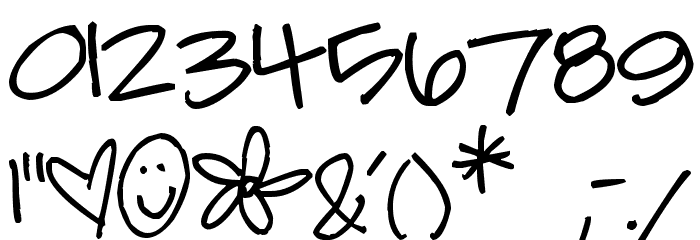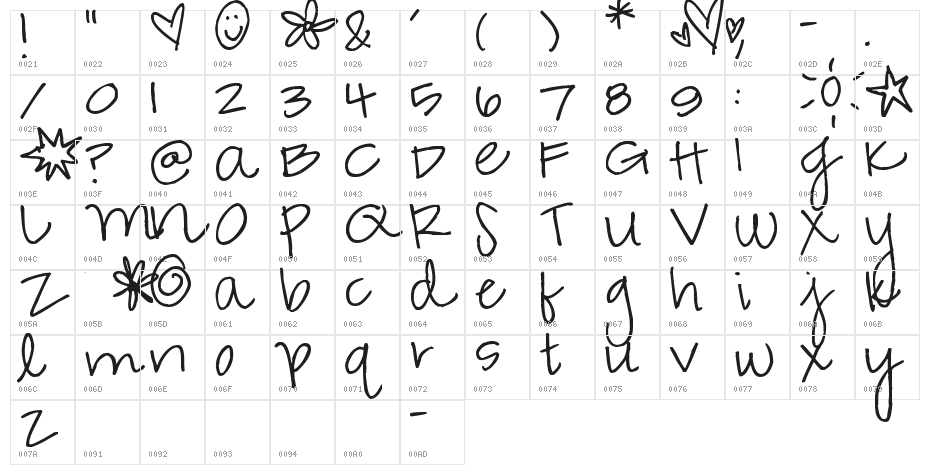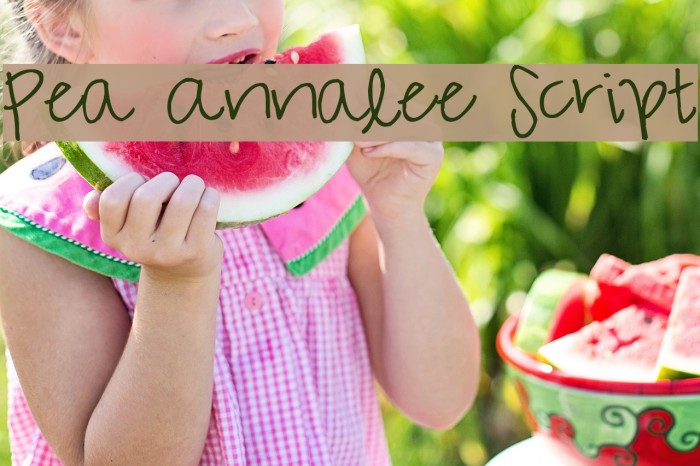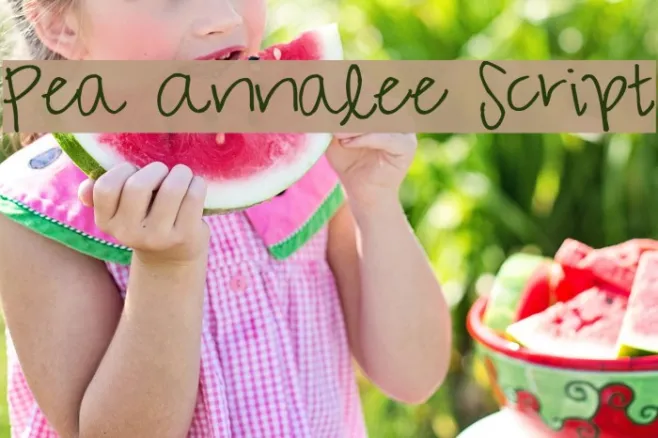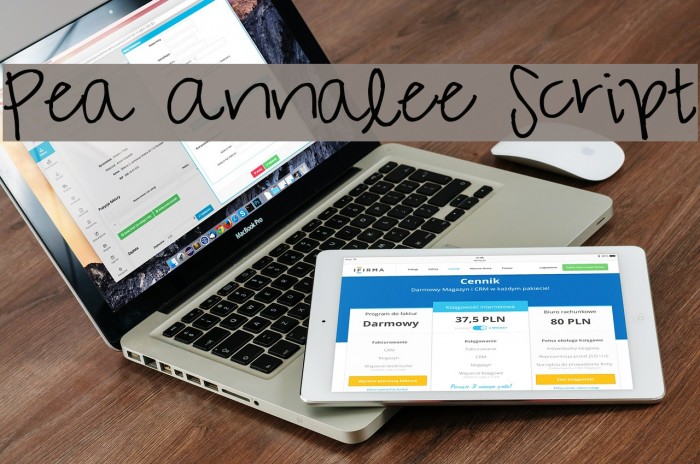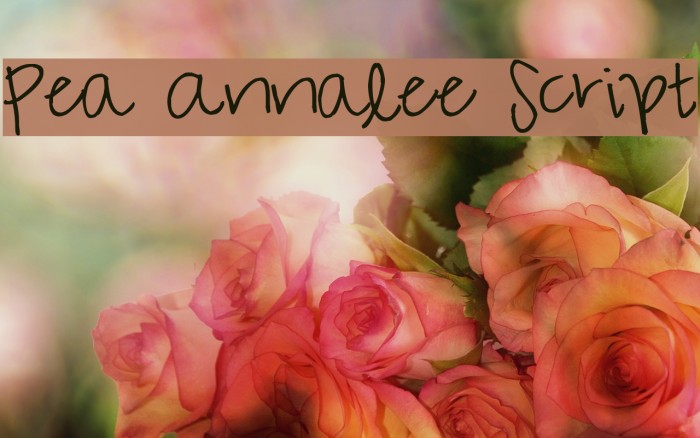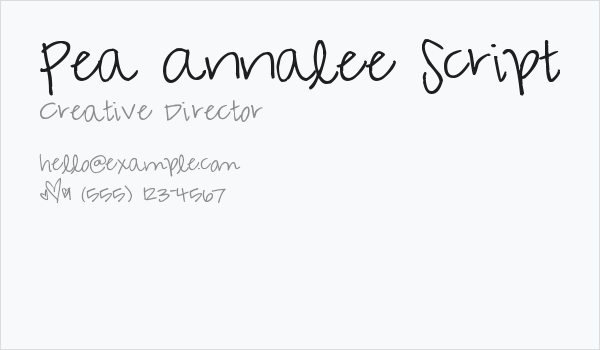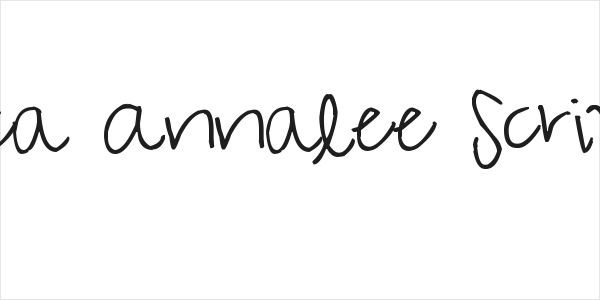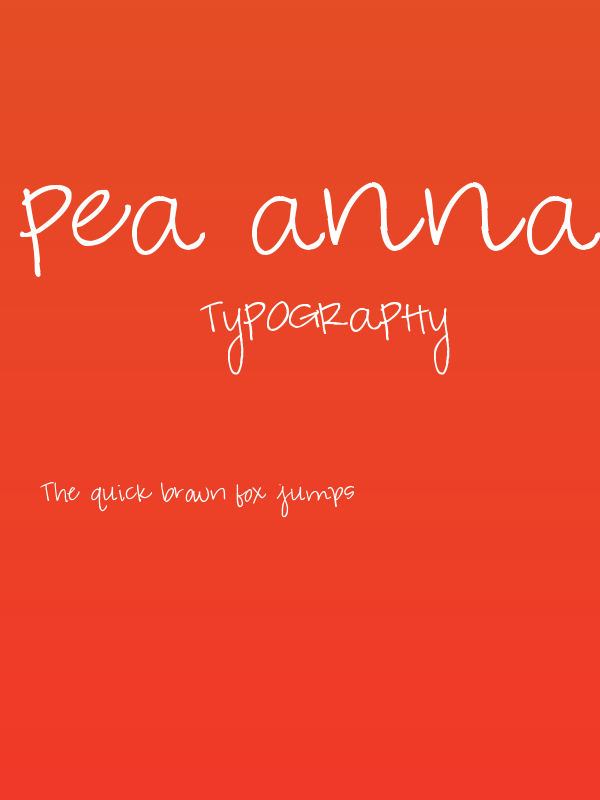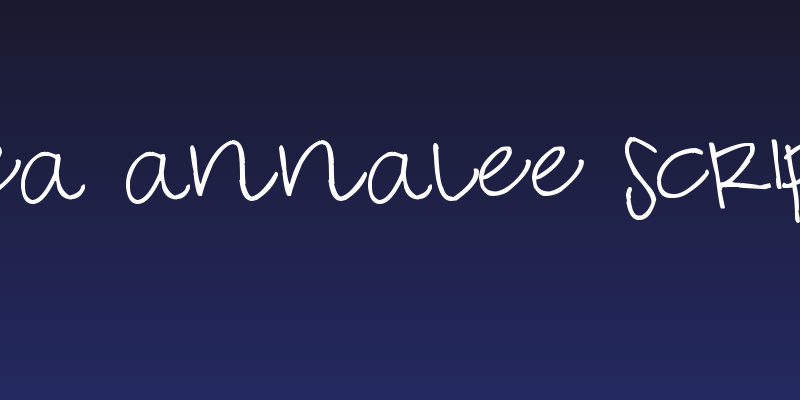
Pea Annalee Script Font
Pea Annalee Script Description
This font exudes a playful and casual handwritten style, characterized by its flowing and connected letterforms. The strokes are smooth and slightly irregular, giving it an authentic, personal touch. The uppercase letters maintain a consistent height, while the lowercase letters vary slightly, adding to the informal feel. Numbers and special characters are crafted with the same whimsical flair, making them blend seamlessly with the alphabet. The overall appearance is friendly and approachable, ideal for projects that require a personal or creative touch.